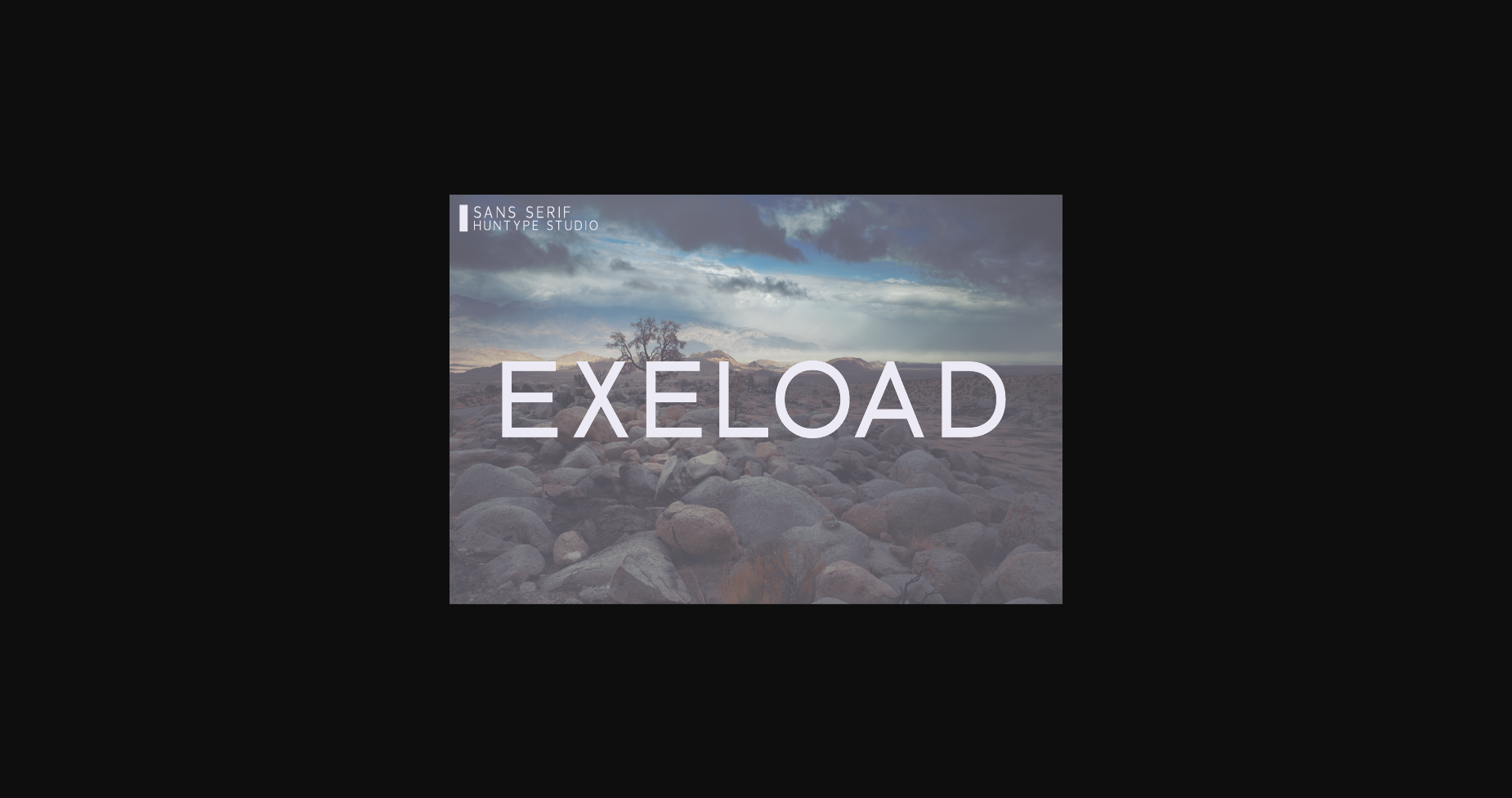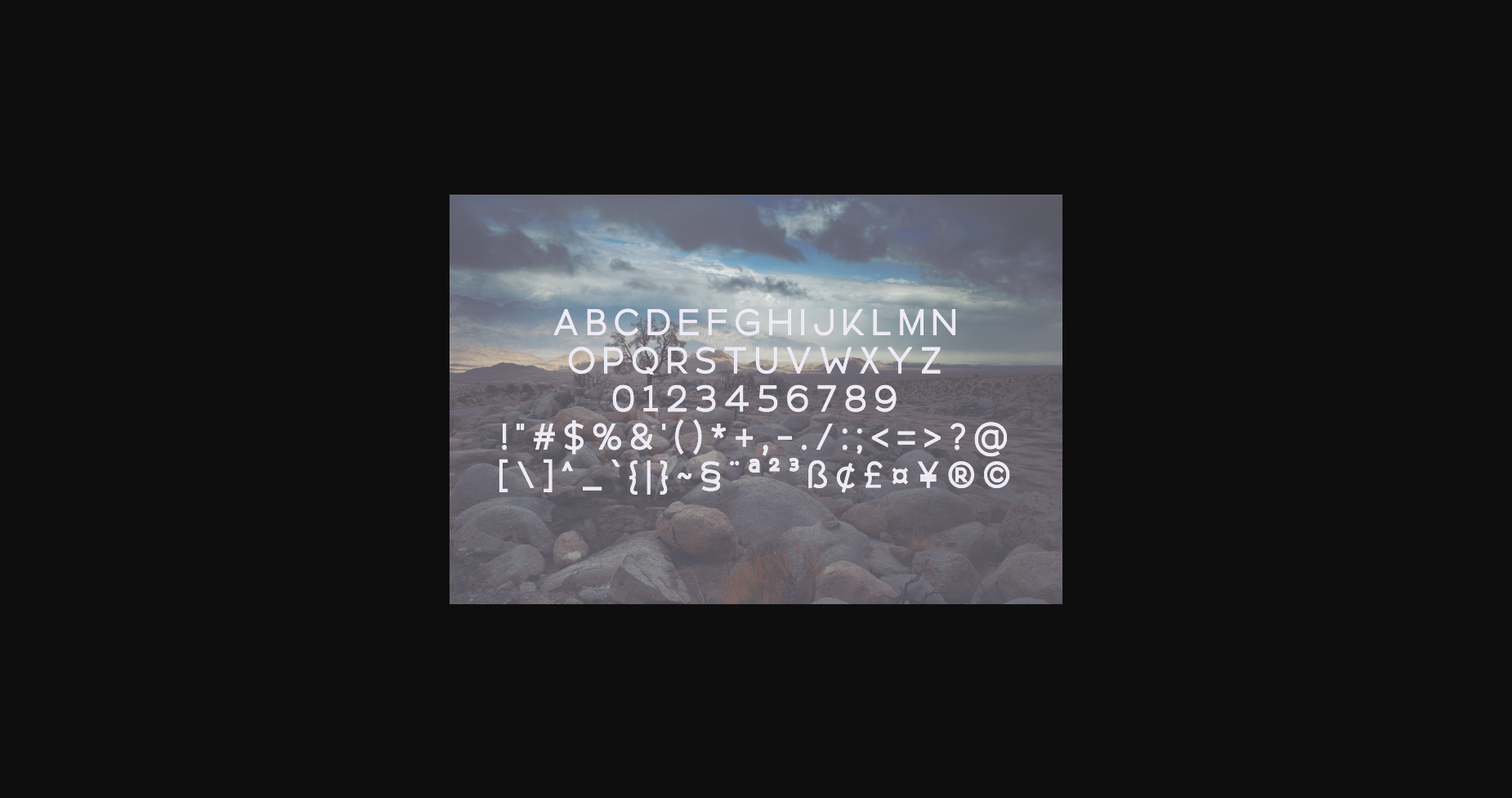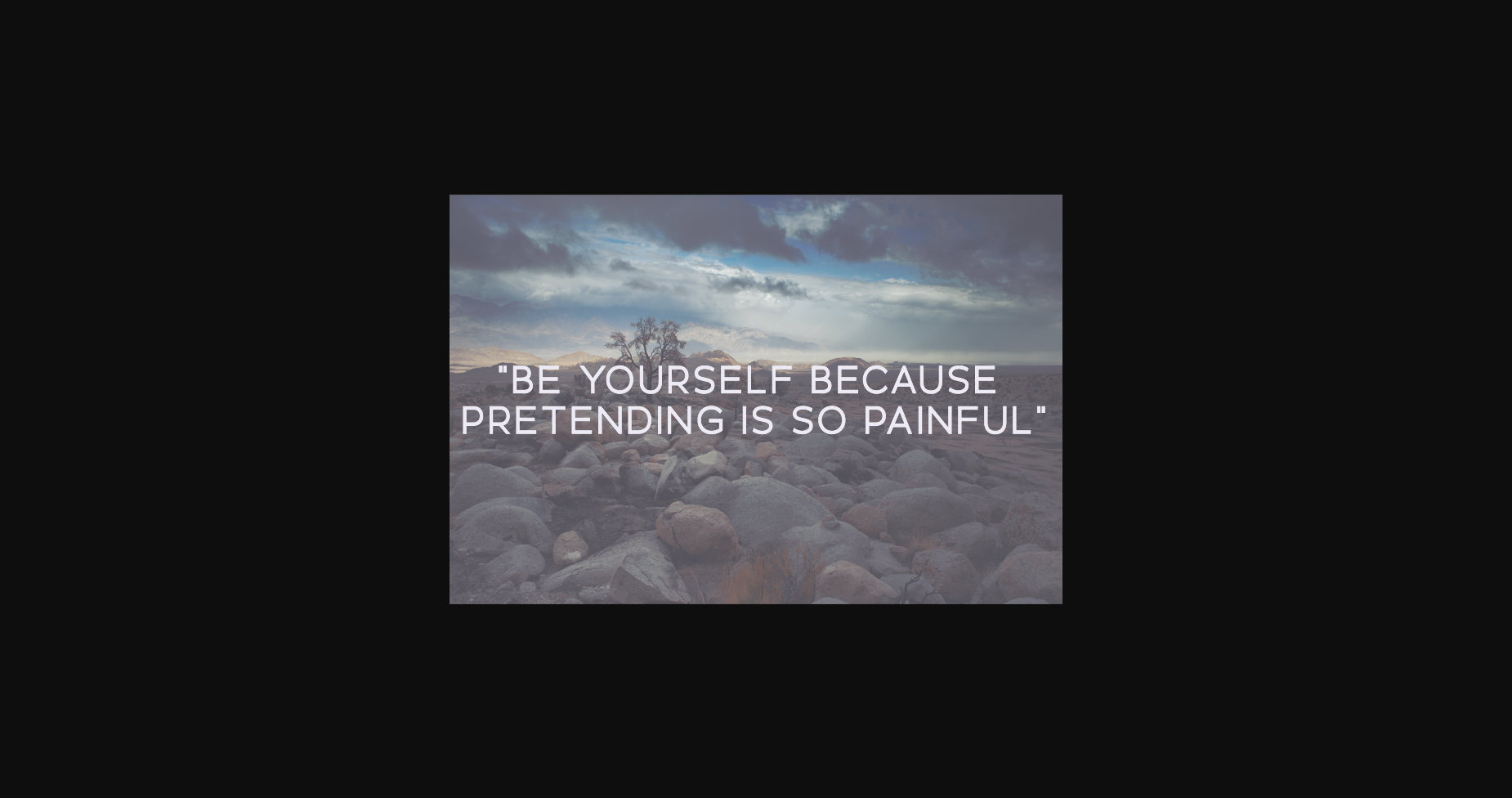
HomeSans Serif FontsExeload Font Sans Serif Fonts Exeload Font FacebookXPinterestWhatsApp 1 of 5 ... Exeload Font Poster 2... Exeload Font Poster 3... Exeload Font Poster 4... Exeload Font Poster 5... About Exeload Font Exeload is a minimal and neat sans serif font. It can easily be matched to an incredibly large set of projects, so add it to your creative ideas and notice how it makes them stand out! DOWNLOAD NOW People also explored Holiday Font Rich Ganbatte Font Oh Dad Font Carrotflower Invitation Ronald Smith Font Monoright Font Badelion Font Chocolate Font Ginger Font 489 0 TagsExeloadExeload Font Previous articleDoglest FontNext articleNeutral Font LEAVE A REPLY Cancel reply Comment: Please enter your comment! Name:* Please enter your name here Email:* You have entered an incorrect email address! Please enter your email address here Website: Save my name, email, and website in this browser for the next time I comment. Personal Use Free Adriator Personal Use Free Read more about this font Peristiwa Font Personal Use Free Read more about this font BD Beans Personal Use Free Read more about this font Fibon Personal Use Free Read more about this font BLOG Fonts That Capture the Spirit of New York City New York City is more than just a place—it’s an experience, a rhythm, a visual language... How to Install and Use Fonts on Windows, macOS, and Web Projects Free Fonts Risk: Why Free Fonts Can Be Dangerous for Designers How to Cut Any Font on Cricut: Convert a Font to SVG (Free)